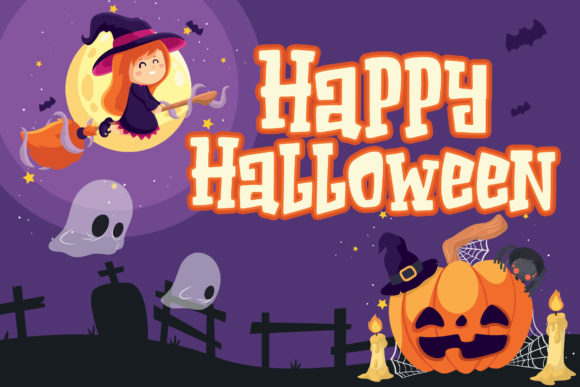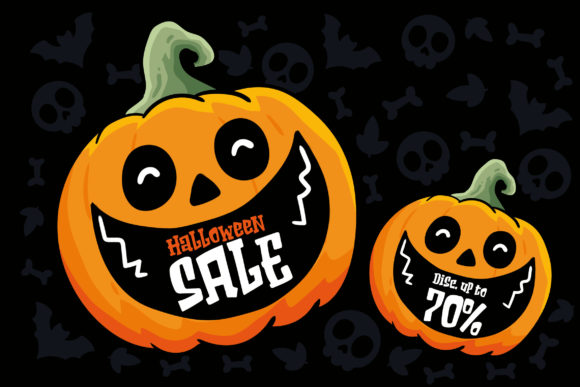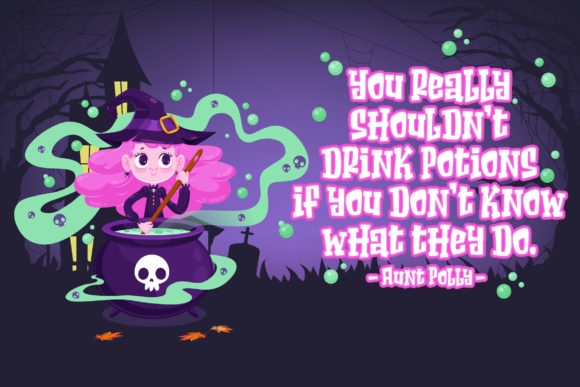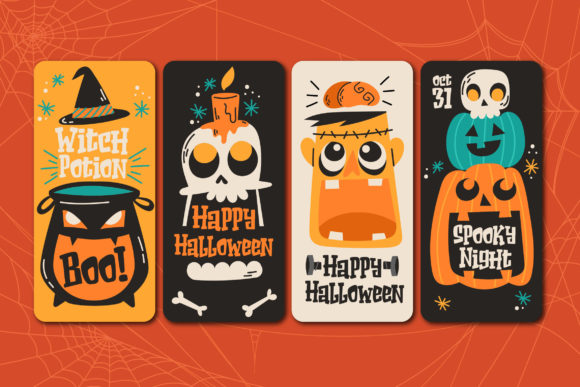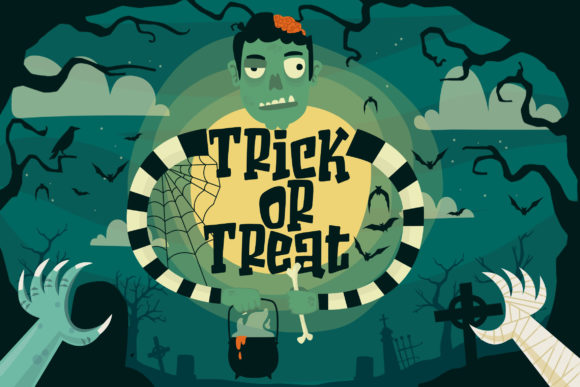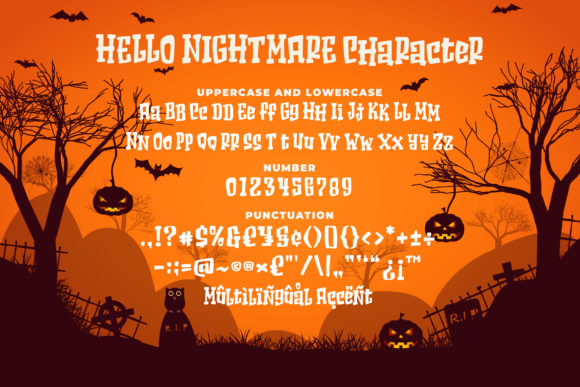
Introduction to Hello Nightmare Font
As a designer, have you ever found yourself stuck in the middle of a creative project, searching for that perfect font to bring your spooky design to life? I know I have! There’s nothing quite like the thrill of discovering a new design resource that elevates your work to the next level. And that’s exactly what happened when I stumbled upon the Hello Nightmare Font.
This quirky display font is a game-changer for any Halloween design, offering a fun and spooky style that’s sure to captivate your audience. With its unique design and high-quality details, the Hello Nightmare Font is the perfect addition to any creative project. Plus, it’s available for free download, making it an accessible resource for designers of all levels.
In this article, we’ll dive into the world of the Hello Nightmare Font, exploring its features, benefits, and how you can use it to take your designs to the next level.
Key Features of Hello Nightmare Font
- High-quality design resource with a unique, eerie aesthetic, perfect for creative projects.
- Comes in 1 font style with 1 weight, ideal for adding a touch of horror or mystery to your design.
- Perfect for designers, artists, and writers working on horror, mystery, or thriller-themed projects, as well as anyone looking for a unique design element.
Honest Review: Hello Nightmare Font
I recently stumbled upon the Hello Nightmare Font, and I must say it’s a unique addition to my design resources. The free download was a bonus, as I’m always on the lookout for high-quality fonts that won’t break the bank.
The font itself has a transparent background, which makes it easy to work with, especially when designing for creative projects that require a certain level of customization.
- ✨ The Hello Nightmare Font has a distinctive, eerie feel that’s perfect for horror-themed projects or anything that requires a sense of unease.
- ✨ The font is highly customizable, with various weights and styles to choose from.
However, I do have a few reservations about the Hello Nightmare Font. ⚠️ The font can be a bit difficult to read at smaller font sizes, which may be a limitation for certain design applications.
Overall, I think the Hello Nightmare Font is a great addition to any design resource collection. Its unique style and high quality make it a valuable asset for creative projects. Just be mindful of the potential limitations, and you’ll be good to go.
Here are some tips to help you get the most out of the Hello Nightmare Font: use it in creative projects, such as posters, flyers, and social media graphics; experiment with different font sizes and styles to create a unique look; and use it in combination with other design elements, such as images and shapes, to create a high-quality design.
Here are some common use cases for the Hello Nightmare Font: creating eye-catching posters and flyers; designing social media graphics and ads; and creating high-quality documents, such as resumes and presentations.